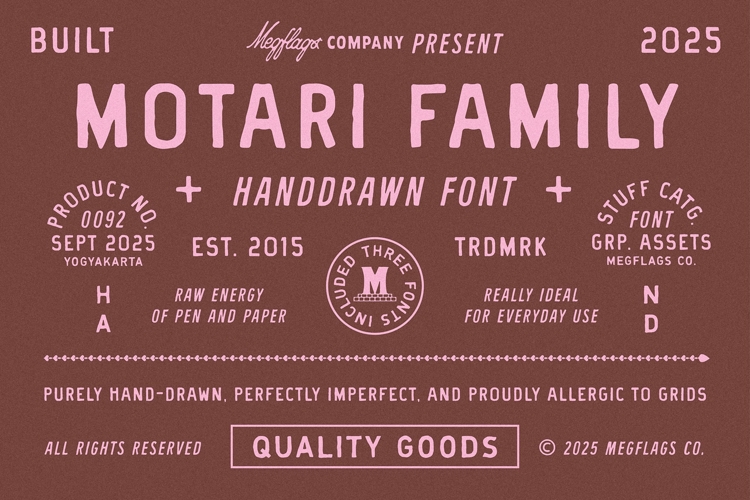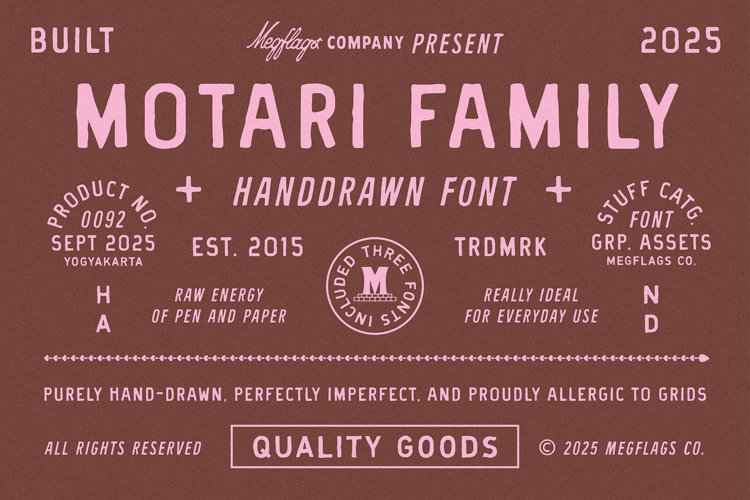
Motari
Motari is a hand-drawn font made to break the rules of “too polished” design. The family comes with 3 distinct styles: Regular, Slant and Bold. Perfect for vintage posters, DIY packaging, restaurant menus, band merch, or anything that needs a punch of handmade soul.
Motari